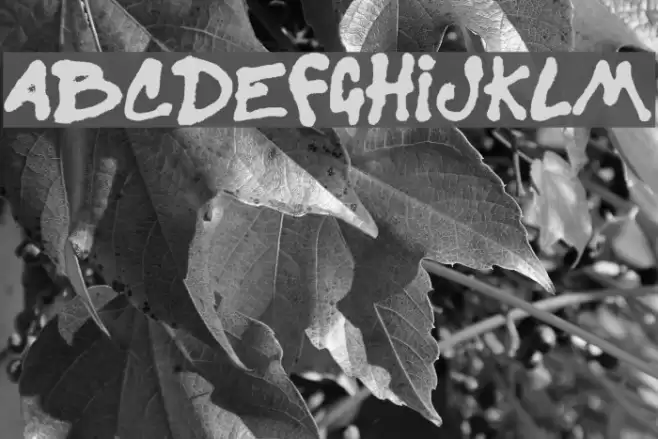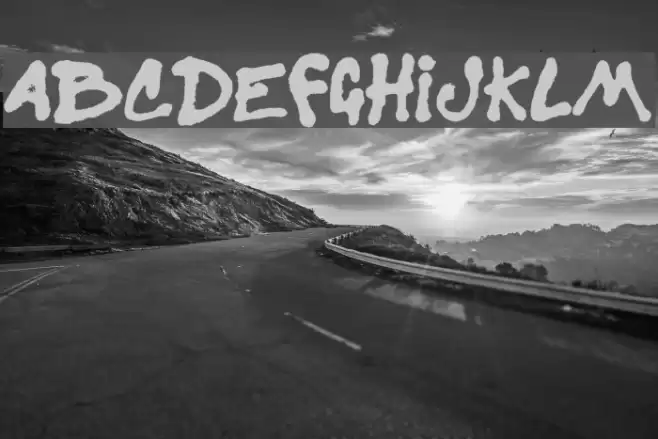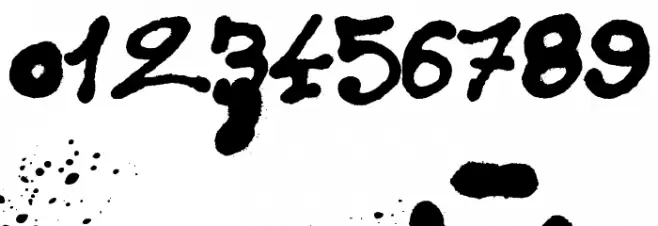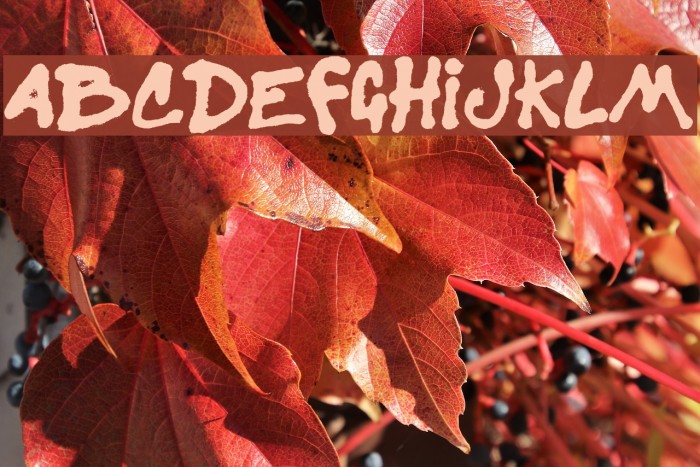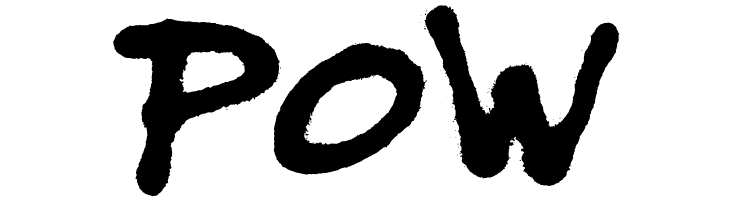
Sister Spray Font
Sister Spray Description
This font features a bold, expressive style that mimics the appearance of spray paint. The characters are irregular and dynamic, with a sense of movement and energy. The uppercase letters are bold and slightly slanted, while the lowercase letters maintain a similar style with a more compact form. Numbers and special characters follow the same aesthetic, adding to the overall cohesive look. The font's rough edges and uneven strokes give it a raw, urban feel, making it ideal for projects that require a gritty, street-inspired look.
A bold, spray paint-inspired font with dynamic, irregular strokes from Uncategorized fonts.
- Proposed Projects: Perfect for street art designs, urban-themed posters, edgy branding projects, and music album covers.
- Overall Style: Urban, Edgy, Expressive
- Use Case: Logos, Posters, Album Covers